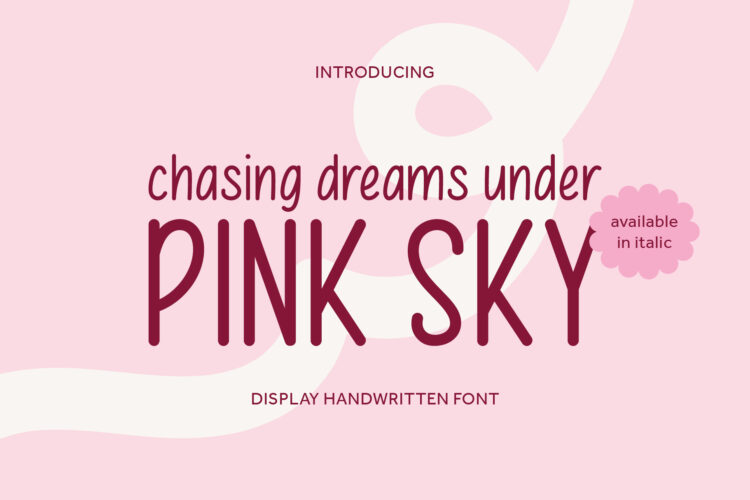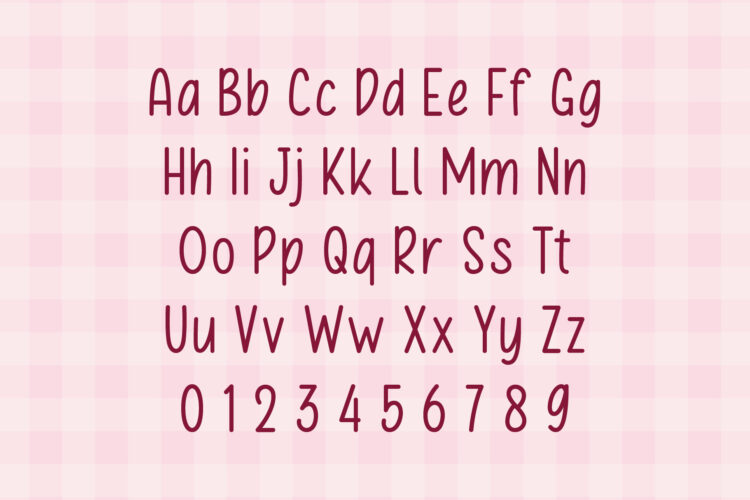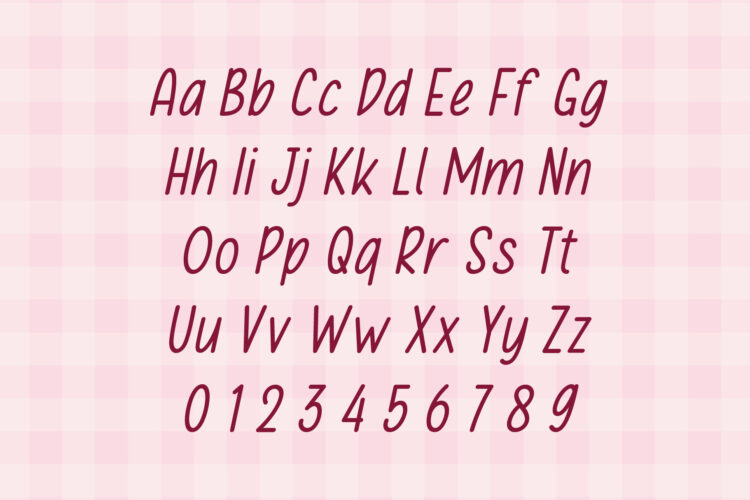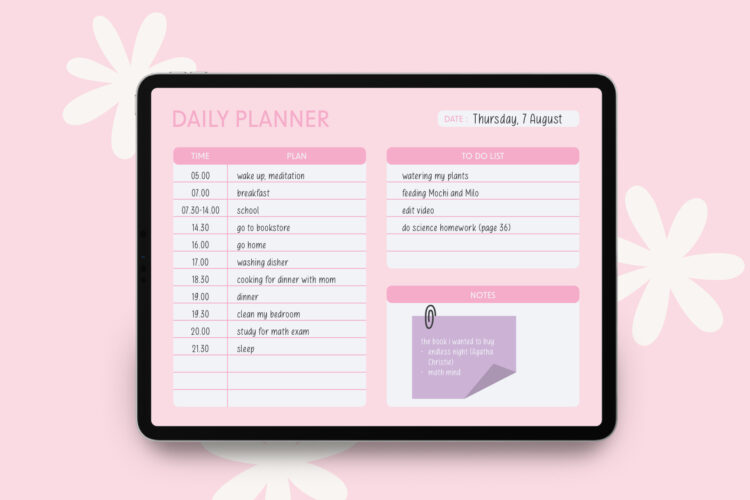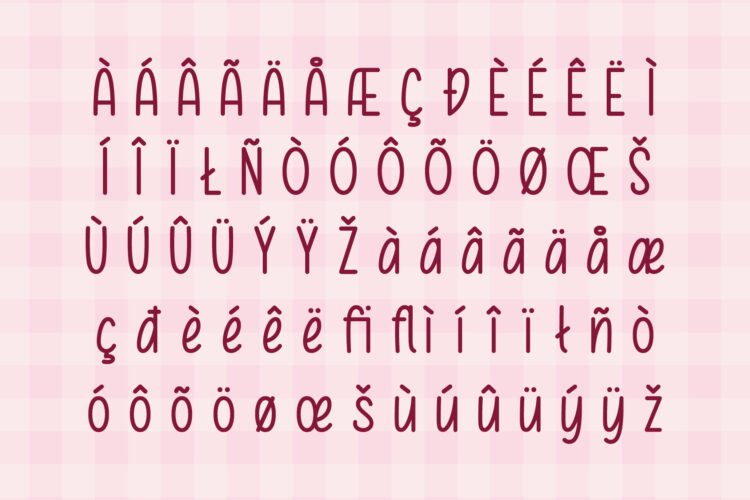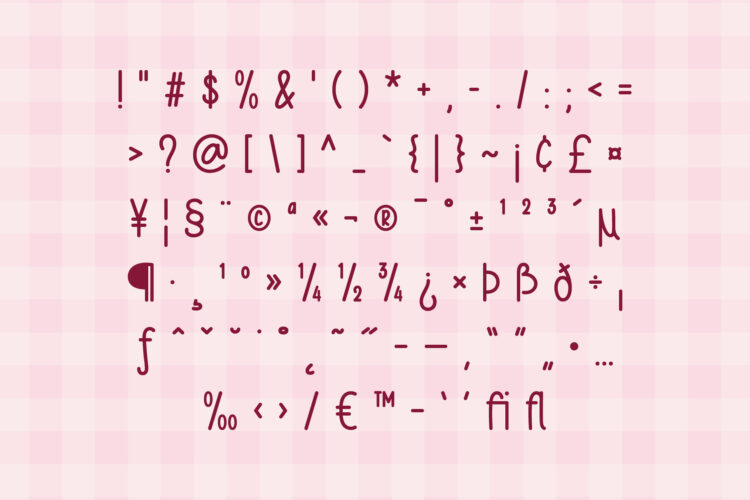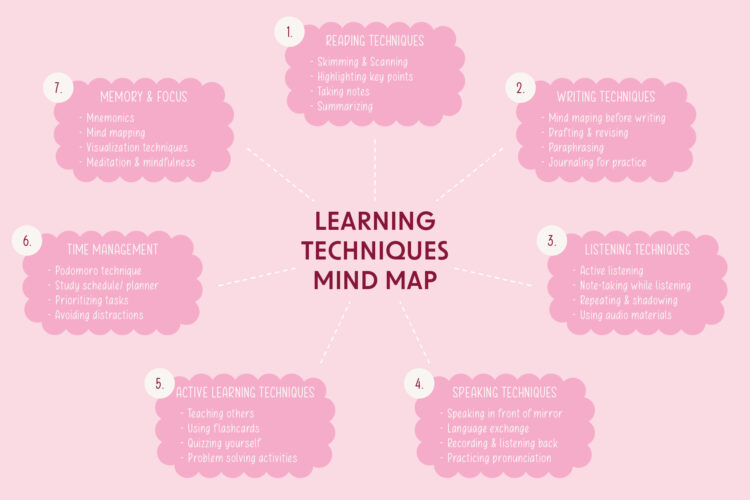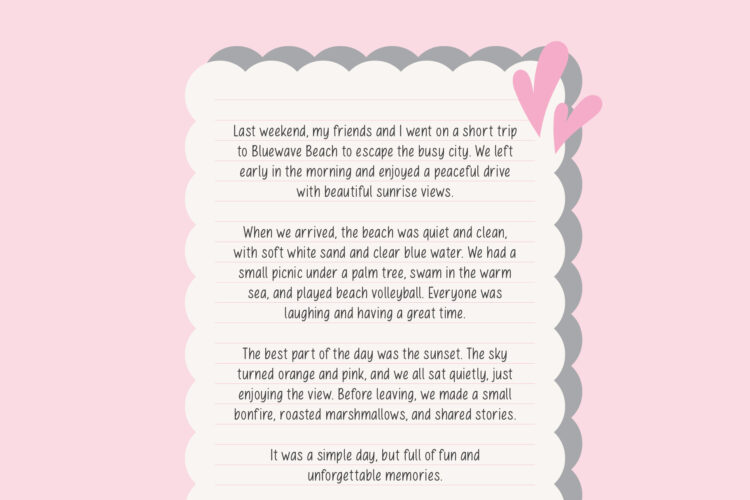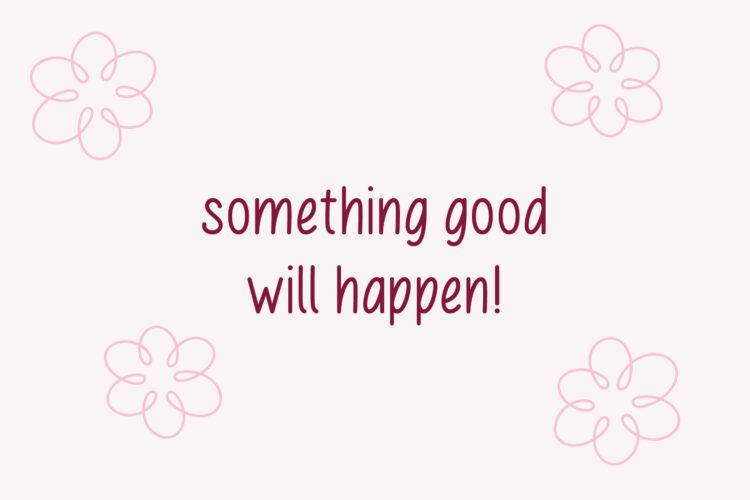
Say hello to Pink Sky – a playful and fun hand-drawn font that’s full of joy and imagination! Pink Sky is perfect for kids’ products, storybooks, toys, packaging, and anything that needs a splash of happiness.
This font includes uppercase and lowercase letters, numbers, and a set of basic symbols. As a result, you’ll have all the essentials to create adorable, child-friendly designs with ease.
Let your designs shine as bright as a pink sky. Add a touch of wonder and whimsy with a font that feels just like childhood – warm, happy, and full of fun.